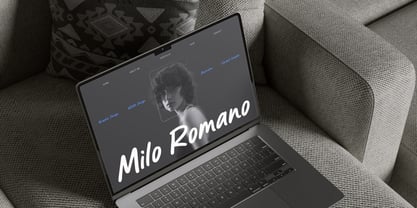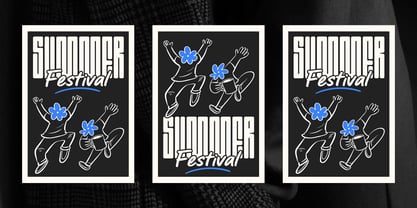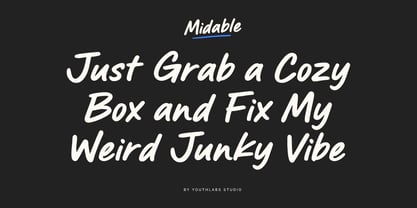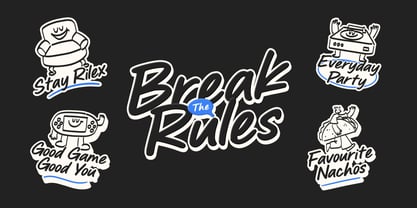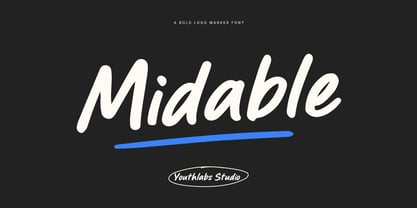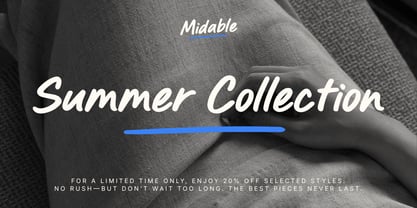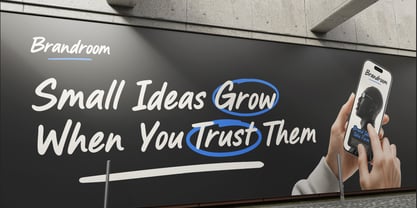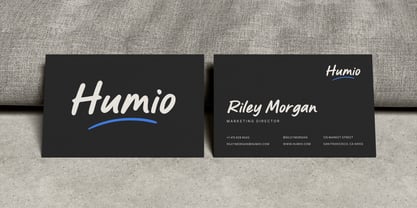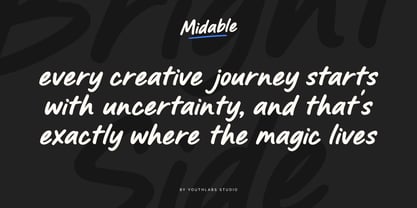
Midable
by Youthlabs
The Midable Font Family was designed by Fathi Al Ghazi and published by Youthlabs. Midable contains 4 styles and family package options. More about this family
Midable is a high-octane marker font designed to dominate the visual landscape. Created with raw energy by Youthlabs Studio, this typeface brings an unapologetic boldness to every character, making it the ultimate tool for creators who need their messaging to feel hand-crafted yet professional. Whether you are crafting cinematic titles, high-energy sports branding, gritty social media overlays, or disruptive packaging, Midable delivers a punchy, authentic aesthetic that demands immediate attention. Its swift, deliberate strokes offer a unique blend of urban grit and modern sophistication, ensuring your projects stand out with a confident, human touch.
Designers: Fathi Al Ghazi
Foundry: Youthlabs